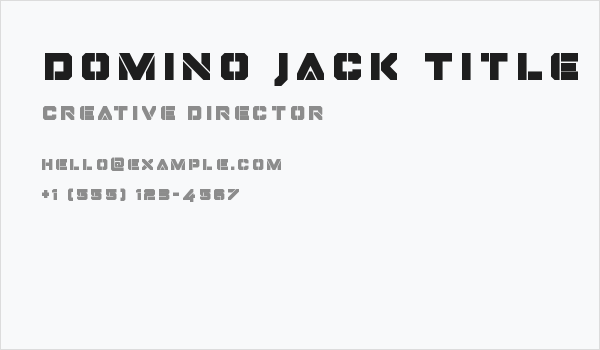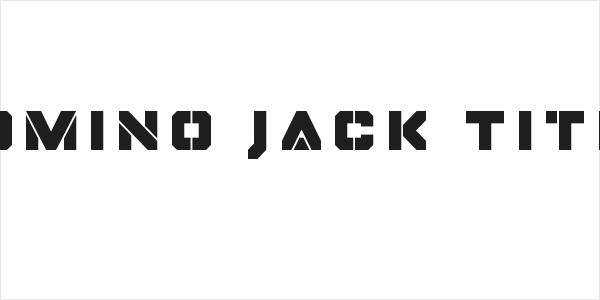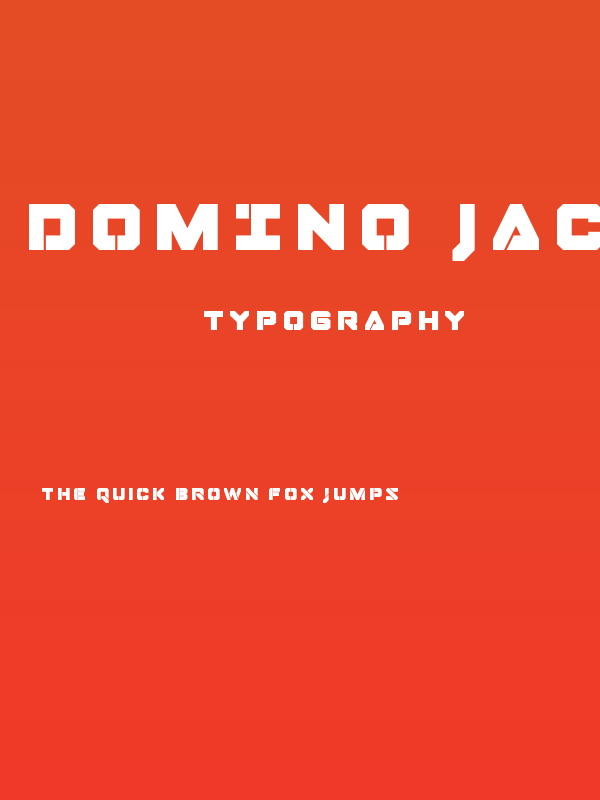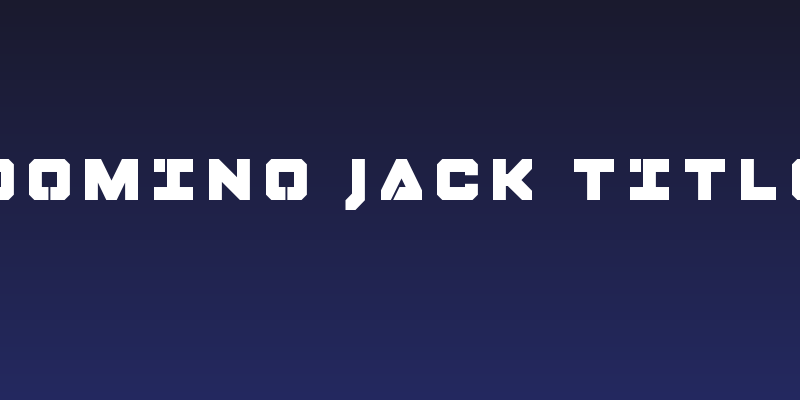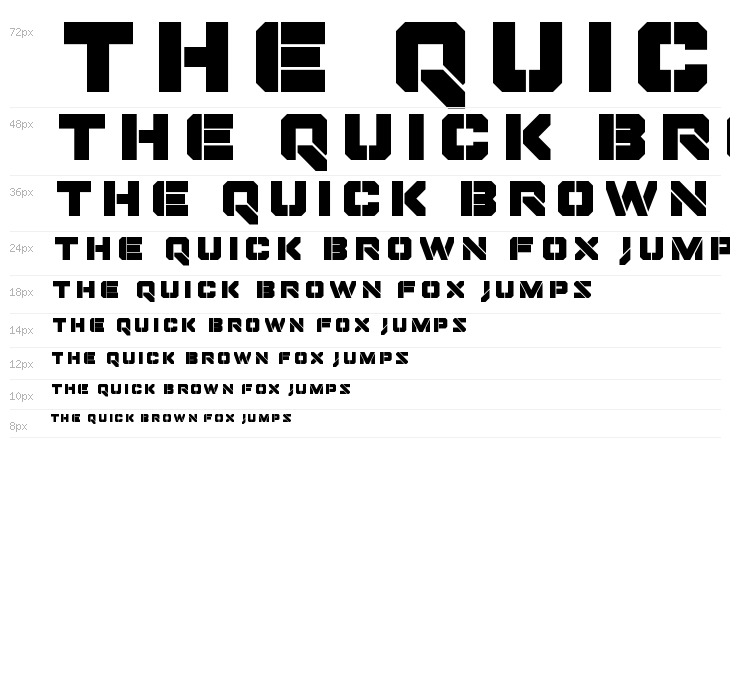
Domino Jack Title Font
Domino Jack Title Description
This font features a bold, geometric style with a distinct, blocky appearance. Each character is crafted with sharp angles and a futuristic aesthetic, making it stand out with a unique, stencil-like design. The uppercase letters are particularly striking, with their solid, robust forms and cut-out sections that add a dynamic visual interest. The numbers and special characters follow the same design principles, ensuring consistency across the typeface. This font is perfect for projects that require a modern, edgy look, such as technology branding, video game titles, or sci-fi themed designs. Its strong presence and high readability make it suitable for both digital and print media.
| Proposed Projects | Ideal for technology branding, video game titles, sci-fi themes, and modern posters. |